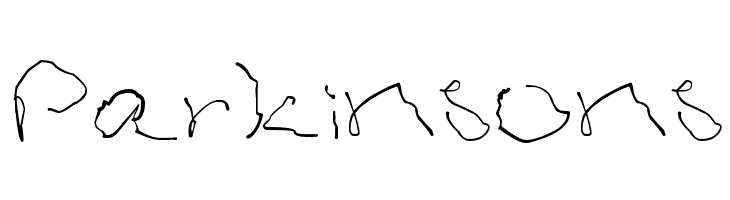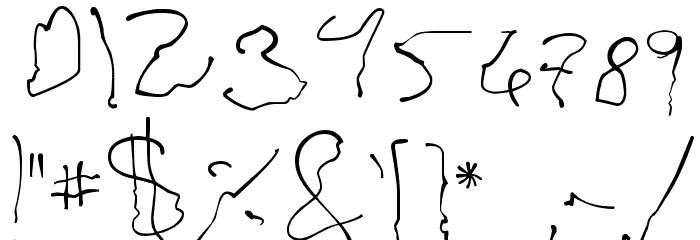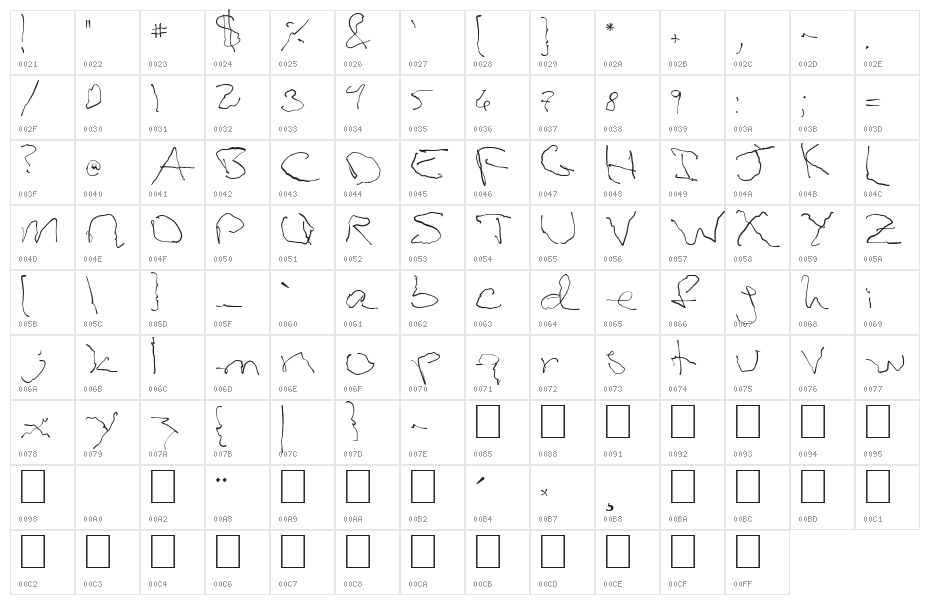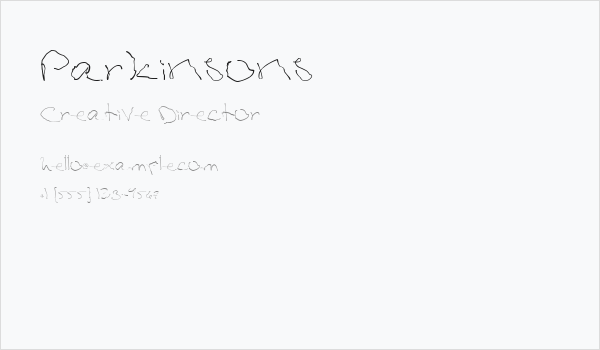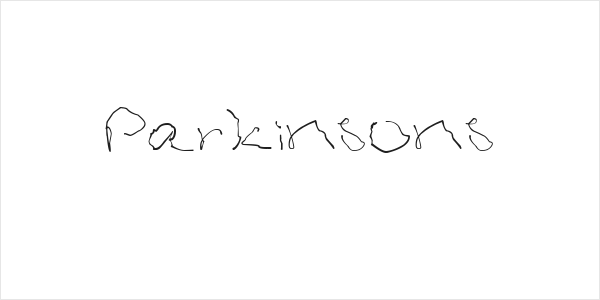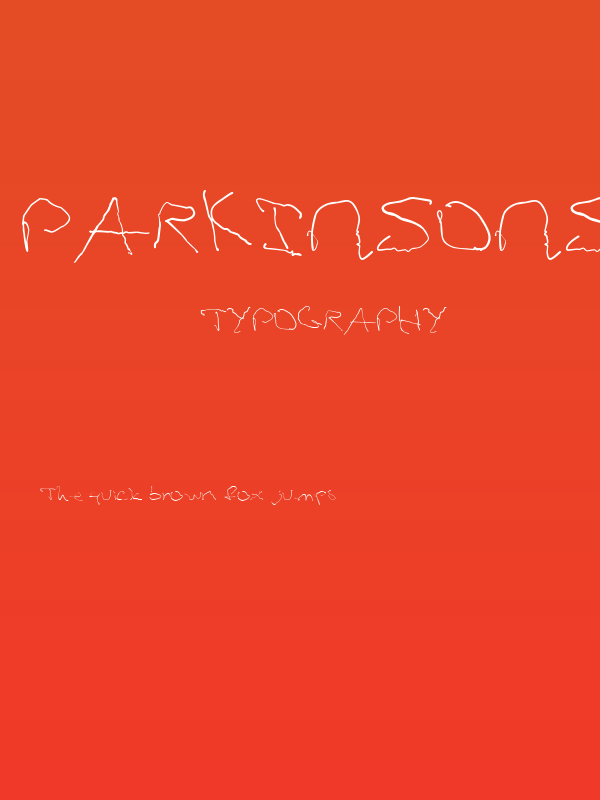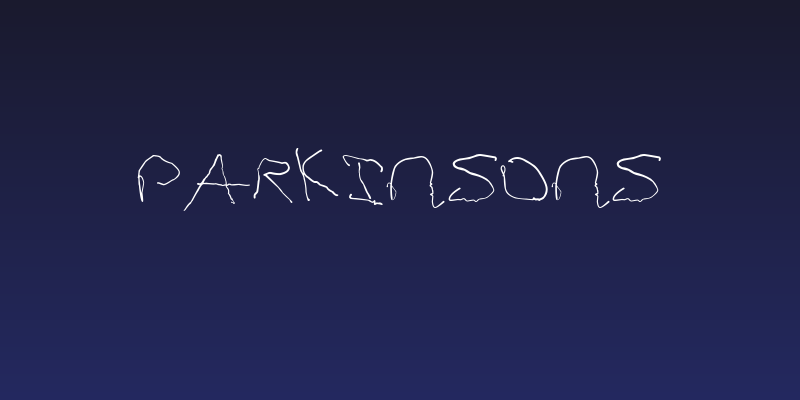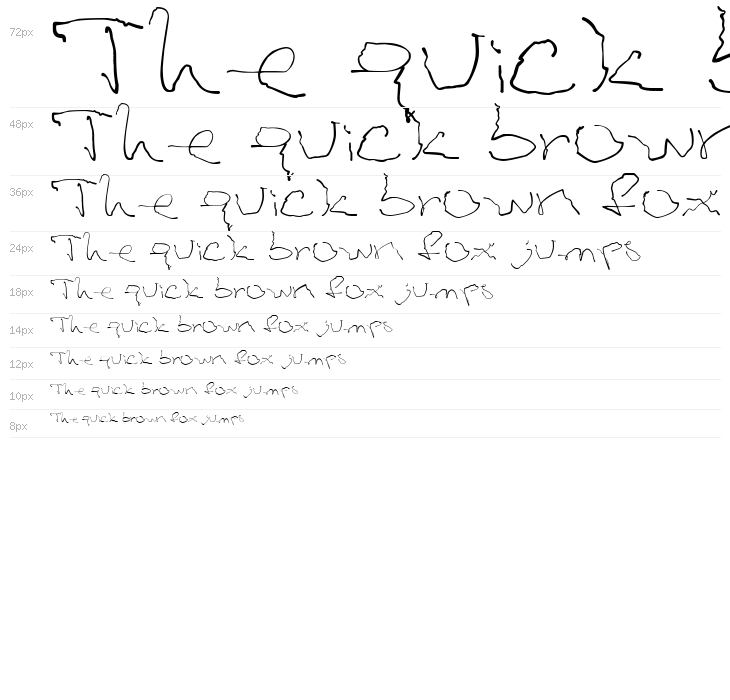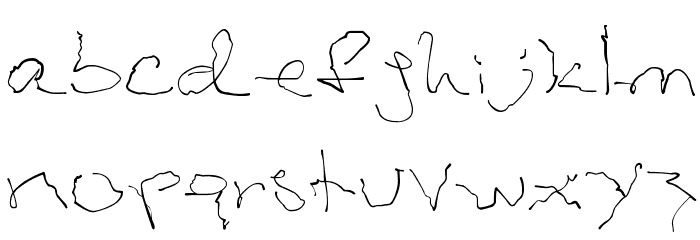
Parkinsons Font
Parkinsons Description
This font exhibits a highly irregular and shaky appearance, reminiscent of handwriting affected by tremors. The strokes are uneven, with varying thickness and unpredictable curves, giving it a raw and organic feel. The characters are loosely connected, with some letters appearing distorted or incomplete. This style creates a sense of movement and unpredictability, making it unique and eye-catching. The font's overall aesthetic is chaotic yet intriguing, capturing attention with its unconventional form.
| Use Case | Artistic designs, expressive themes, emotional projects. |
| Proposed Projects | Ideal for artistic projects, expressive designs, or themes related to movement and emotion. |